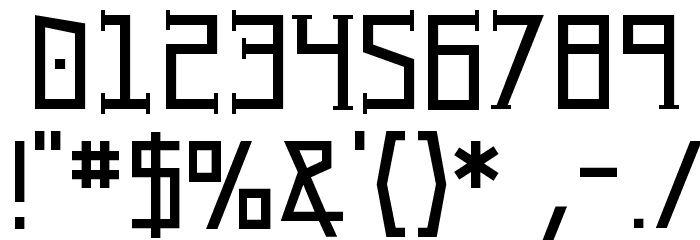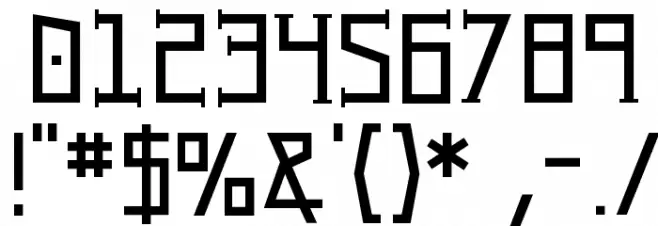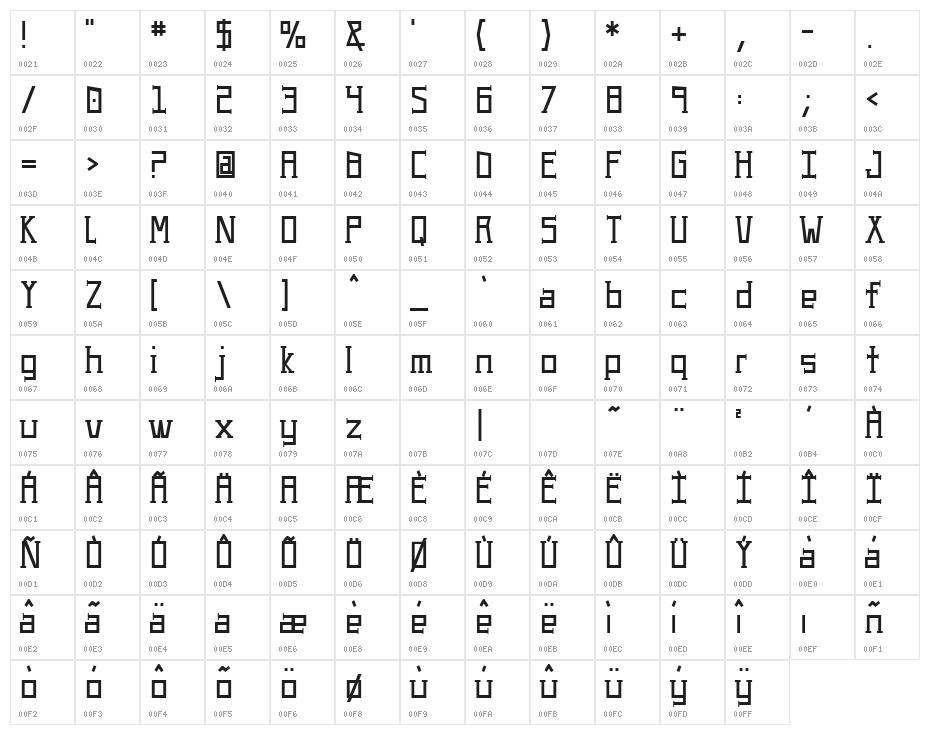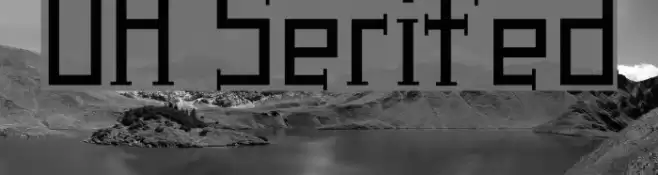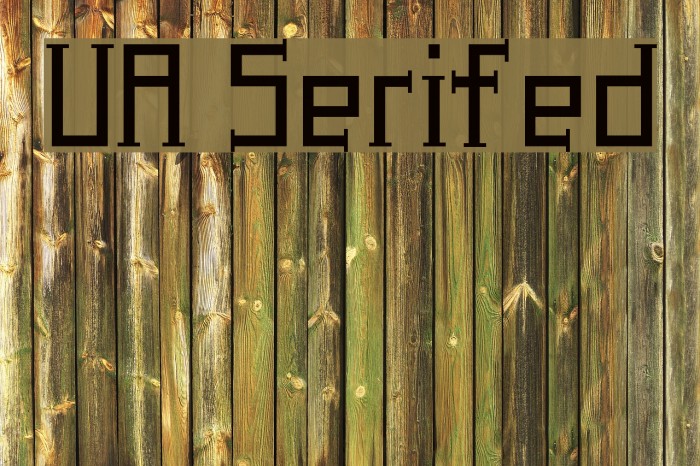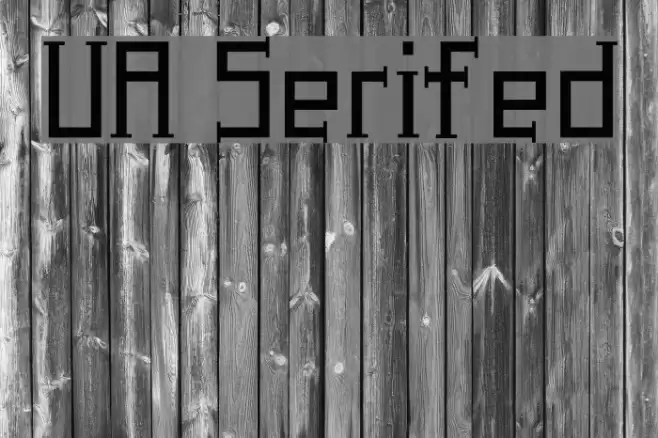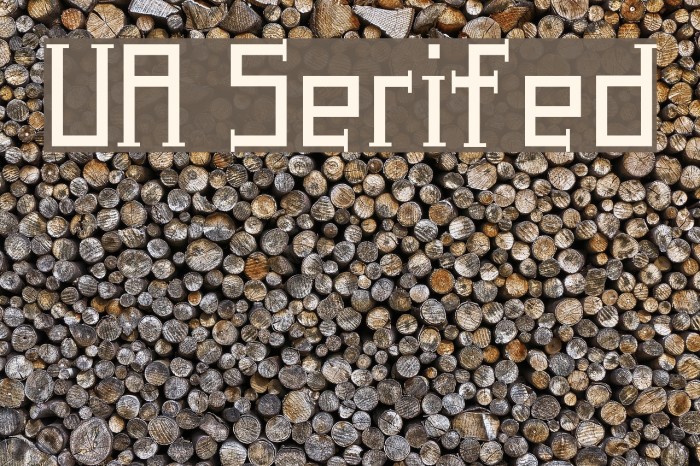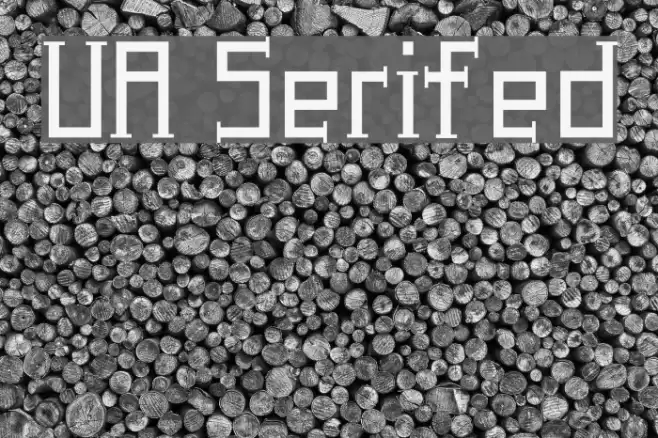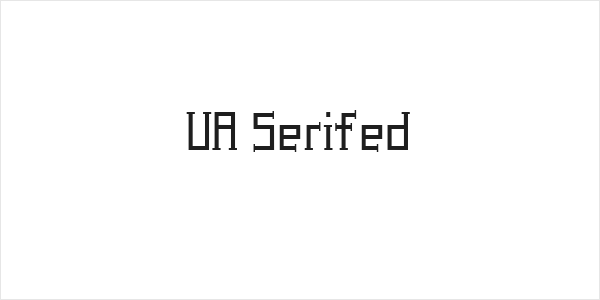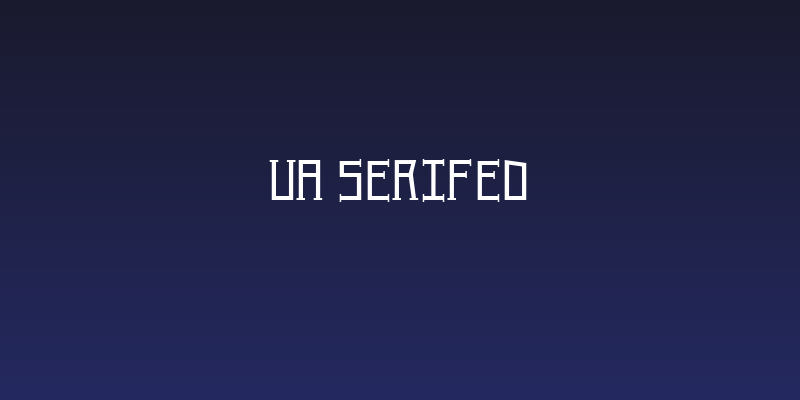
UA Serifed Font
UA Serifed Description
This font features a bold and structured design with distinct serifs that give it a strong, authoritative presence. The uppercase letters are tall and commanding, while the lowercase letters maintain a consistent height, providing a balanced look. The numerals are clear and easily distinguishable, making them suitable for various applications. Special characters are designed with the same boldness, ensuring consistency across all glyphs. The font's geometric shapes and sharp angles contribute to its modern and slightly industrial feel, making it ideal for projects that require a robust and impactful typeface.